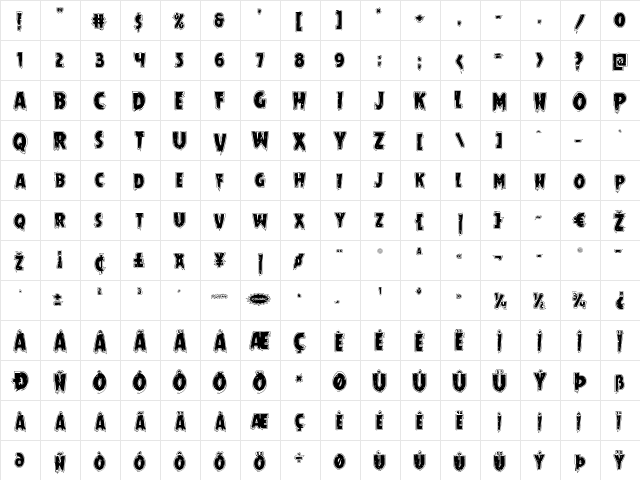
Mrs. Monster Academy Regular
Design Context for Mrs. Monster Academy Typeface
Mrs. Monster Academy is a composed and adaptable typeface that performs quietly and consistently across a wide range of design contexts.